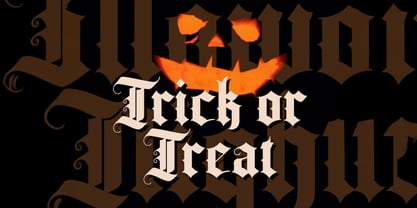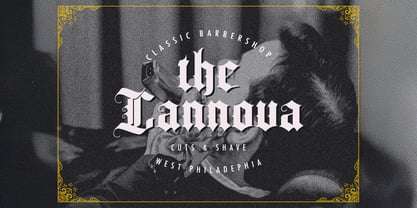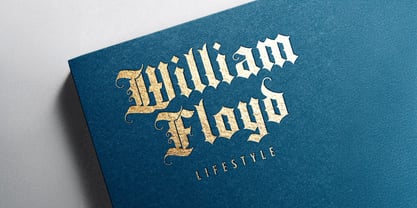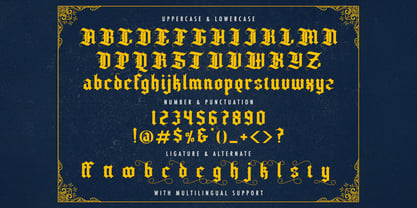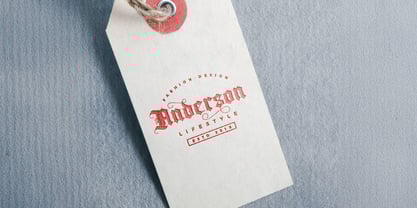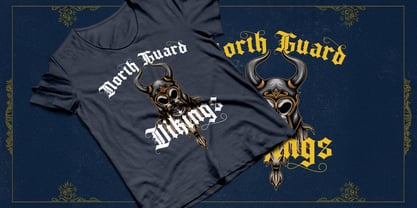
The Bahisy Font Family was designed by Virgiawan Listanto and published by Stringlabs Creative Studio. Bahisy contains 1 styles.
Bahisy is a bold and stylish blackletter font with a sharp edge and vintage soul. Inspired by classic gothic calligraphy, Bahisy brings a dramatic, old-world charm with a modern twist perfect for designs that demand intensity and character. Whether you're creating logos, music covers, apparel, or posters, Bahisy adds a striking, fearless touch that stands out from the crowd. It's bold, artistic, and built to leave a lasting impression.